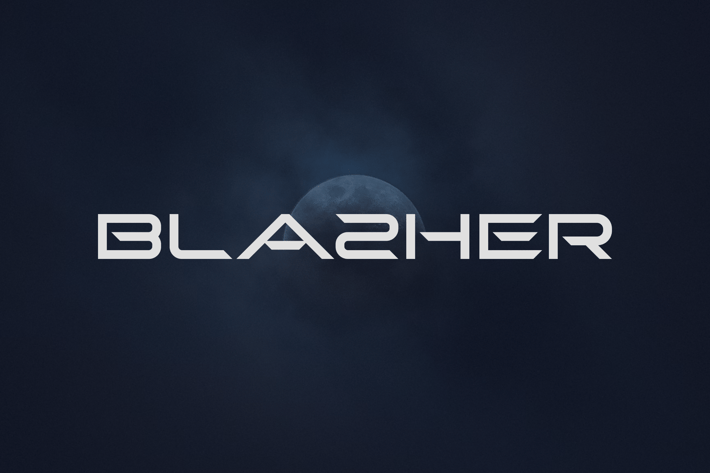
Blazher - Modern Font Typeface
Introducing our new product Blazher Font - Modern Font Typeface
Blazher Font - Modern Font is a bold and authentic display font. The font is suitable for any branding project like logo,
t-shirt printing, esport, and many more. outstanding in a wide range of contexts.